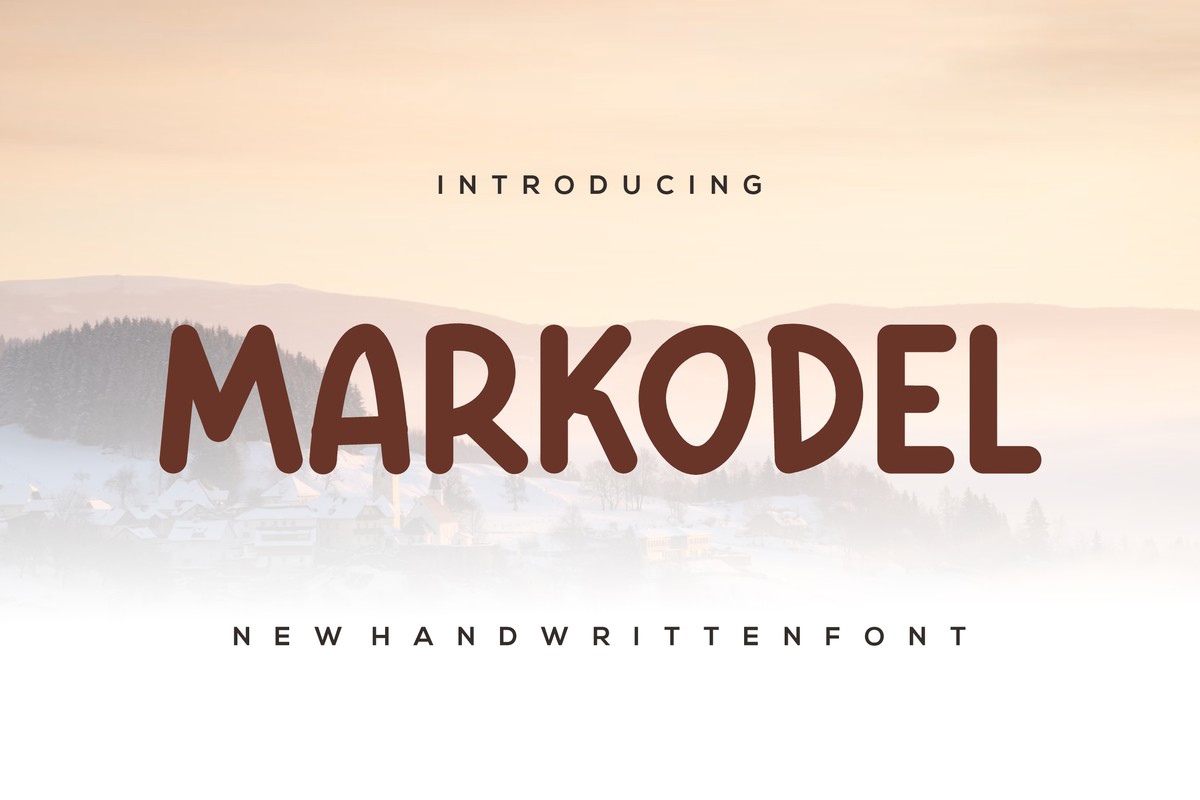
Markodel Font
Markodel Font excels in fashion model agency branding, high-fashion magazine layouts, luxury runway show materials, modeling portfolio presentations, fashion photography studio signage, couture fashion house logos, elite modeling school promotions, fashion week event marketing, designer showcase displays, and sophisticated fashion industry communications. This elegant typeface brings runway glamour and fashion sophistication to any style-focused design project.
Markodel Font is exciting because it embodies the striking elegance and confident sophistication that defines the world of high fashion modeling, featuring sleek letterforms that convey the same poise, refinement, and magnetic presence that characterizes successful fashion models on international runways. Its glamorous character instantly establishes style authority, fashion credibility, and the sophisticated aesthetic that defines luxury fashion and modeling excellence.
Markodel Font family includes Ultra Light, Light, Regular, Medium, and Bold weights with fashion alternates, runway flourishes, model-inspired ornamental elements, and style symbols that enhance the high-fashion aesthetic, providing fashion designers with sophisticated tools for creating typography that celebrates modeling excellence and fashion industry sophistication.
Fashion industry designers appreciate Markodel Font for its exceptional ability to convey runway elegance and fashion authority through stylishly crafted letterforms. The font's sophisticated character and fashion details create immediate associations with international fashion weeks, luxury modeling agencies, and the exclusive fashion industry that sets global style trends and defines contemporary fashion excellence.
The design philosophy behind Markodel Font celebrates the artistry and professionalism of fashion modeling as a creative industry that shapes global style trends and cultural aesthetics, making it particularly effective for modeling agencies, fashion publications, and luxury fashion brands that require typography reflecting fashion industry expertise and sophisticated style sensibility. Fashion teams working on luxury campaigns find this font essential.
Whether used for elite modeling agencies, high-fashion magazines, or luxury fashion events, Markodel Font delivers the perfect combination of runway sophistication and fashion industry authenticity. Its glamorous appeal and style authority make it an indispensable choice for fashion organizations that represent modeling talent, create fashion content, and influence global style trends through sophisticated fashion industry communications.